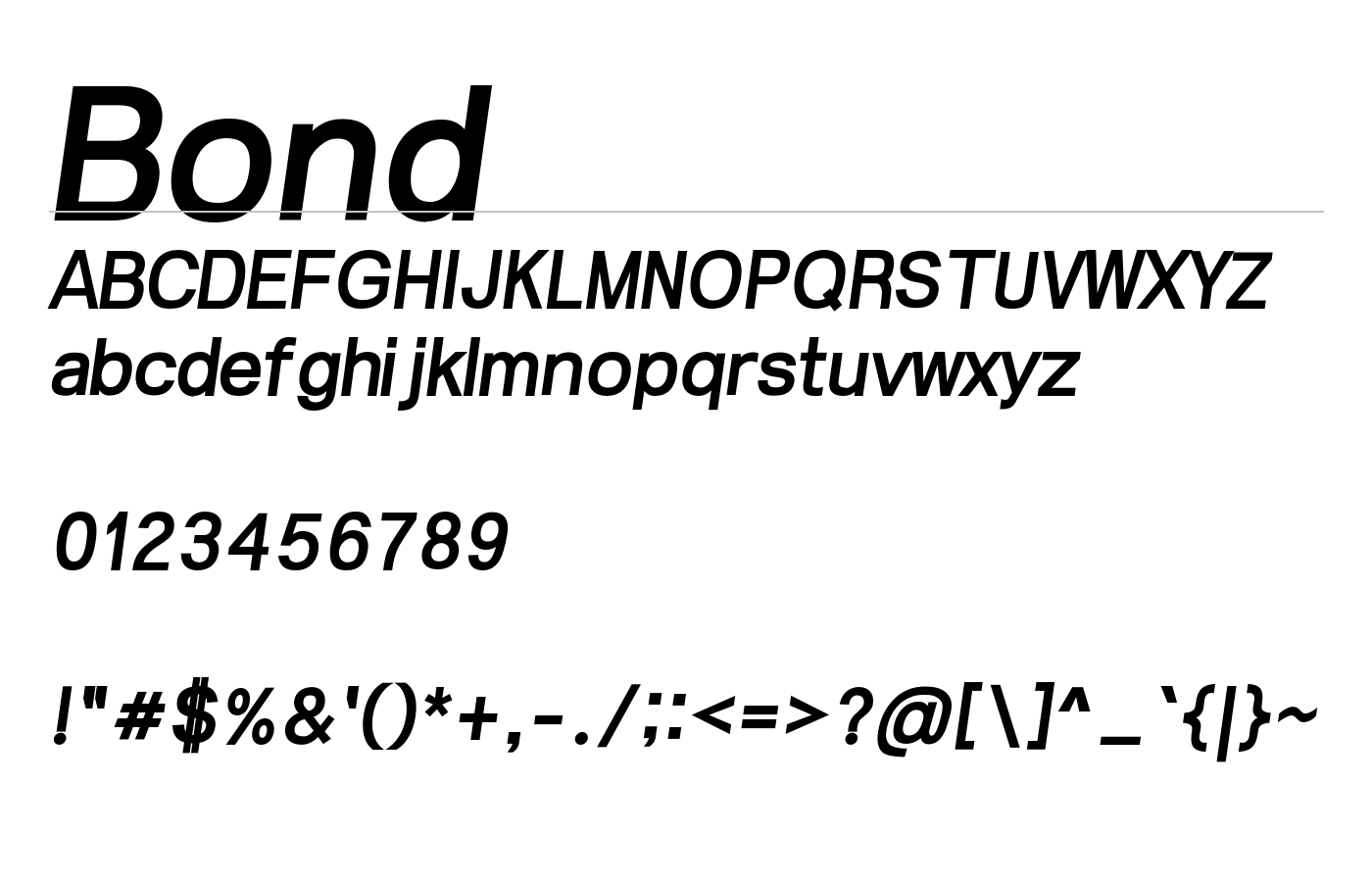
Bond is a bold, condensed sans serif with a modern and dynamic feel, characterized by its italic slant and clean, geometric letterforms. Its high x-height and tight spacing make it excellent for impactful headlines, logos, and branding that demand a strong, confident presence. This font works especially well in contemporary design contexts where clarity and style must go hand in hand.
Bond Font